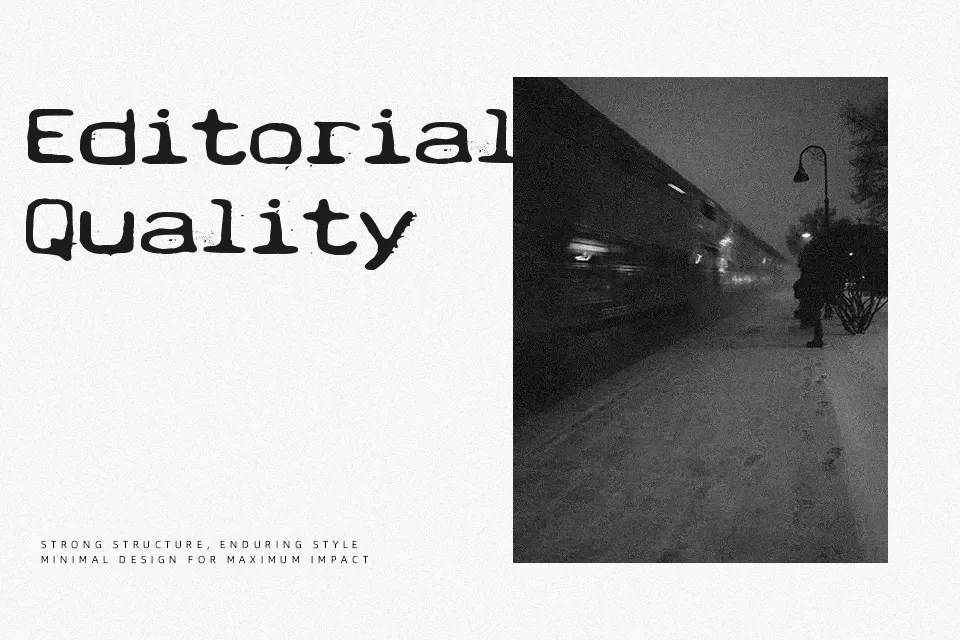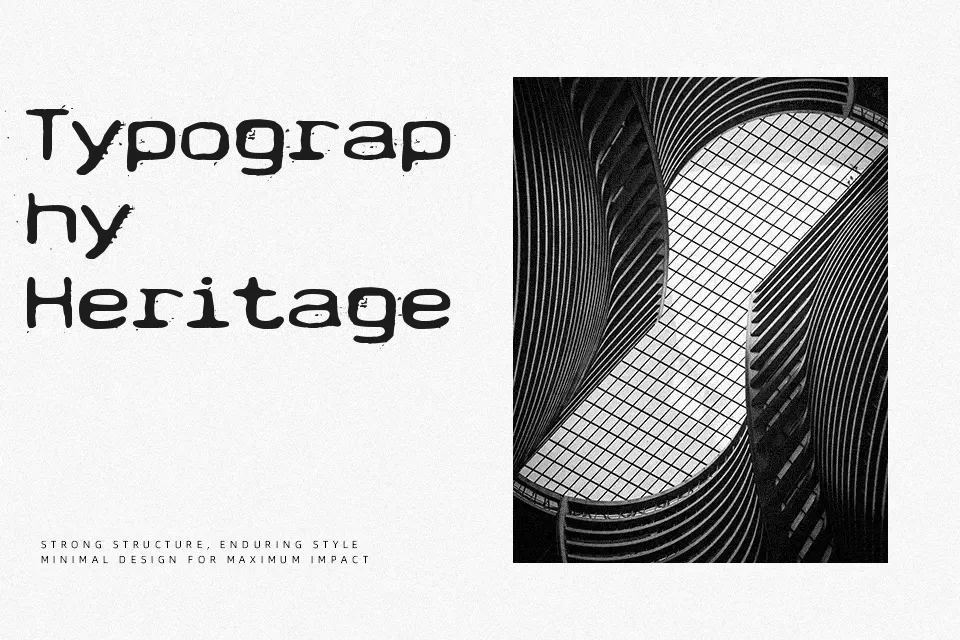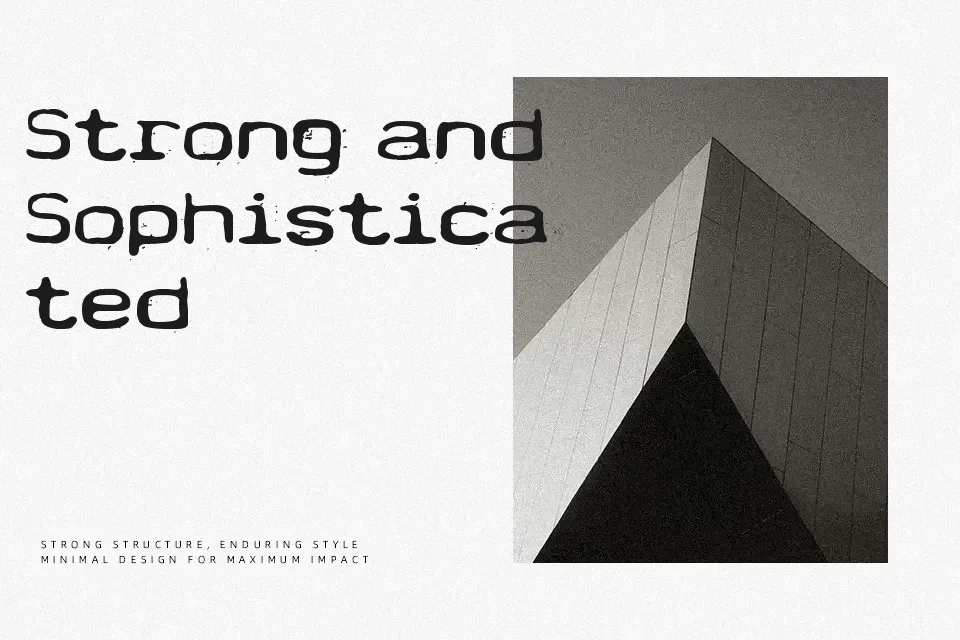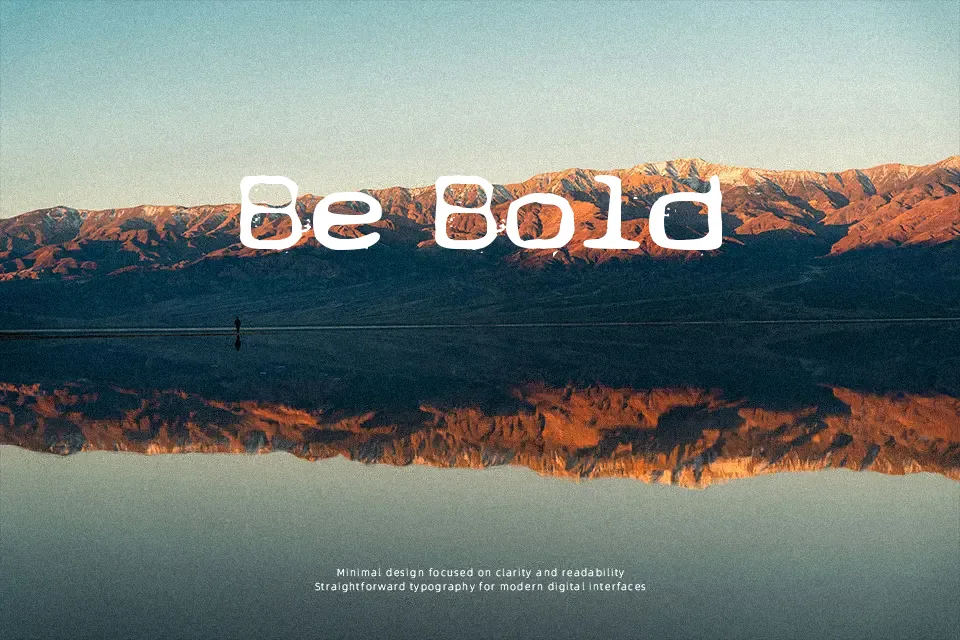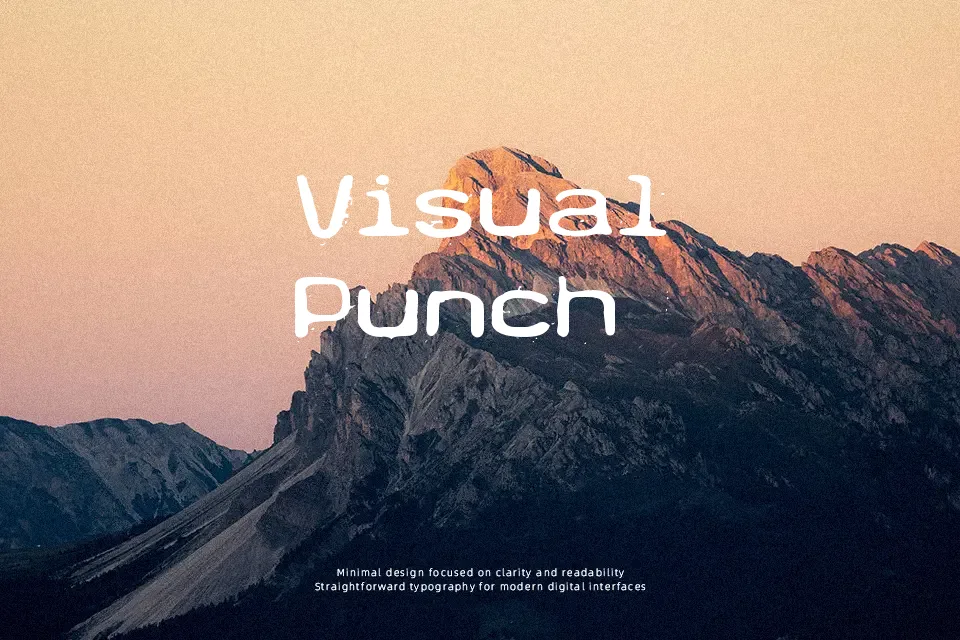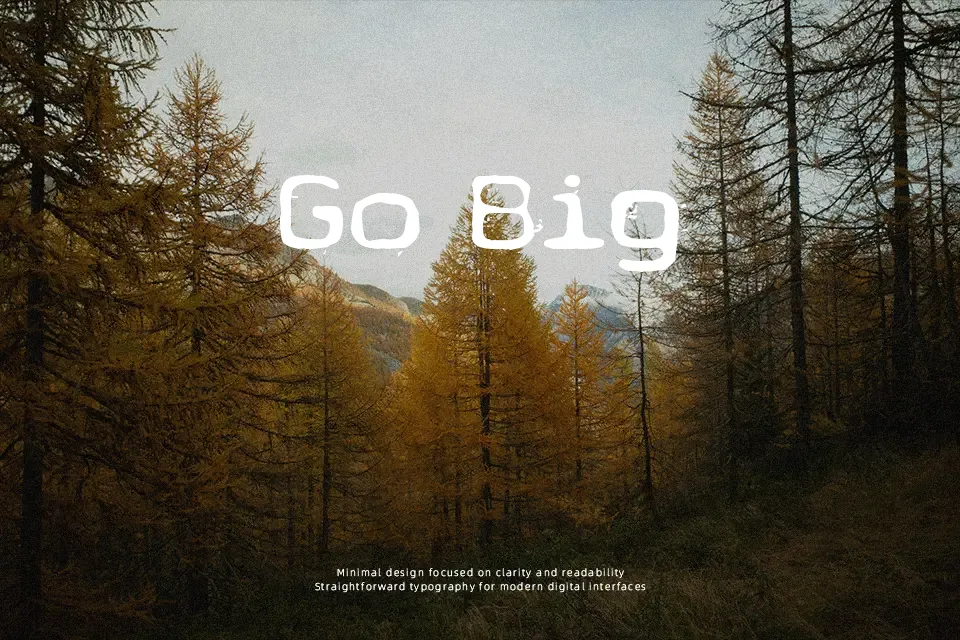
Typetype Font
Built around authentic strike-on mechanics, Typetype Font displays rugged rectangular serifs, consistent stroke weights, and the structured proportions typical of classic manual typewriters. The spacing remains comfortably open, preserving rhythmic separation between characters even when rendered across coarse paper textures or weathered graphics. Designers can deploy the typeface effectively in investigative novel covers, historical documentary titles, and indie game interfaces. Nevertheless, the dense geometry and pronounced slab terminals crowd together in small caption sizes, reducing comfort across multi-line paragraphs. The letterforms perform with exceptional visual authority when showcased as brief, commanding headline elements.
Best For: retro document props, investigative novel covers, period movie posters, indie game titling
Not Ideal For: continuous paragraph reading, small mobile interface captions, dense tabular reports
Perfect for editorial, film, and headline, with a creative and display style.